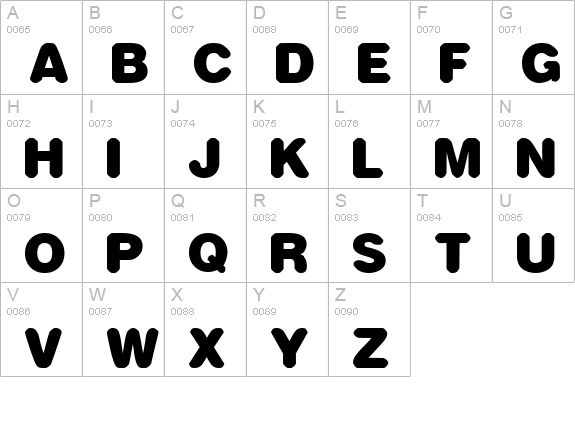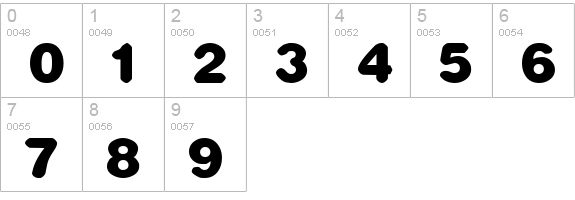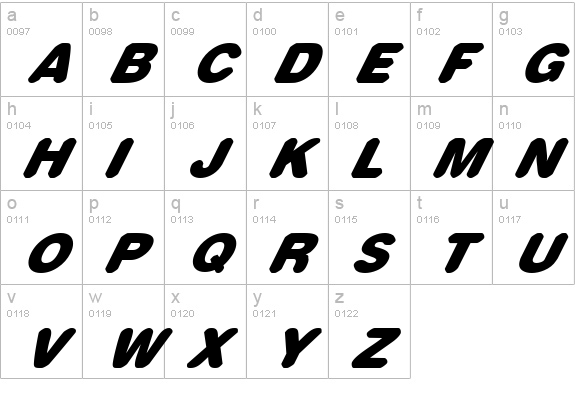
rounder multistyled Font Details
Introducing the exquisite Rounder Multistyled Font - a versatile and modern typeface that seamlessly blends roundness with multiple styles for a unique and eye-catching design. This font is perfect for a wide range of projects, from branding and logos to invitations and social media graphics. The Rounder Multistyled Font features a harmonious balance of soft curves and clean lines, giving it a friendly and approachable appearance. Best of all, this stunning font is available for free download exclusively at FontsMarket.com. Whether you're a seasoned designer looking to add a fresh touch to your work or a beginner exploring the world of typography, the Rounder Multistyled Font is sure to elevate your creations with its charm and versatility. Don't miss out on this amazing opportunity to enhance your design projects with this beautifully crafted font - download it today and let your creativity shine!